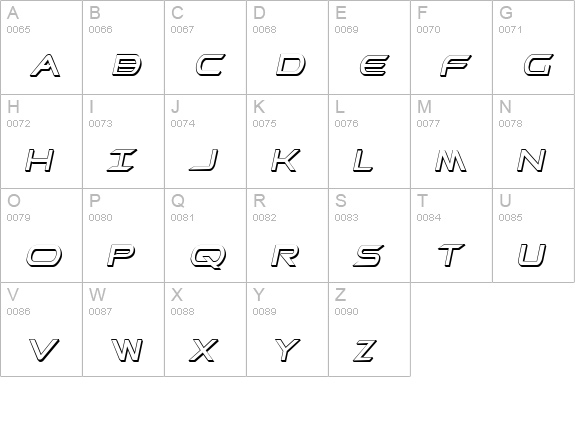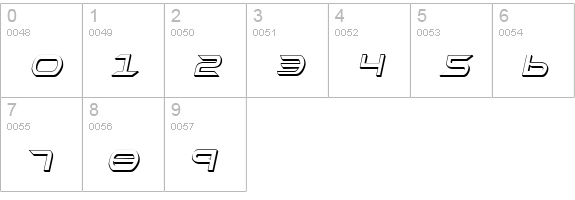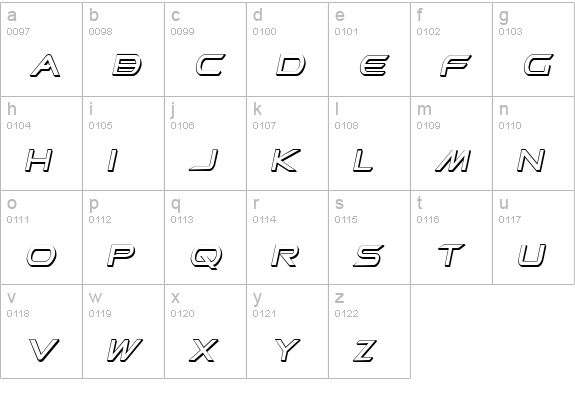
Promethean Shadow Italic is a distinctive, italic variant in the Promethean typeface family \xE2\x80\x94 well suited to design and typography projects.
Introducing Promethean Shadow Italic font - a captivating and sophisticated typeface that exudes elegance and modernity. With its sleek lines and stylish curves, this font is perfect for adding a touch of class to your designs. The italic style of Promethean Shadow adds a sense of dynamism and movement, making it ideal for projects that require a sense of energy and creativity. What makes Promethean Shadow Italic font even more appealing is that it is completely free to download at FontsMarket.com. Yes, you read that right - this stunning font is available at no cost, allowing you to elevate your designs without breaking the bank. Whether you're working on a branding project, creating stunning graphics for social media, or designing eye-catching print materials, Promethean Shadow Italic font is sure to make a lasting impression. Don't miss out on the opportunity to enhance your creative projects with this beautiful and versatile font. Download Promethean Shadow Italic font today and take your designs to the next level!